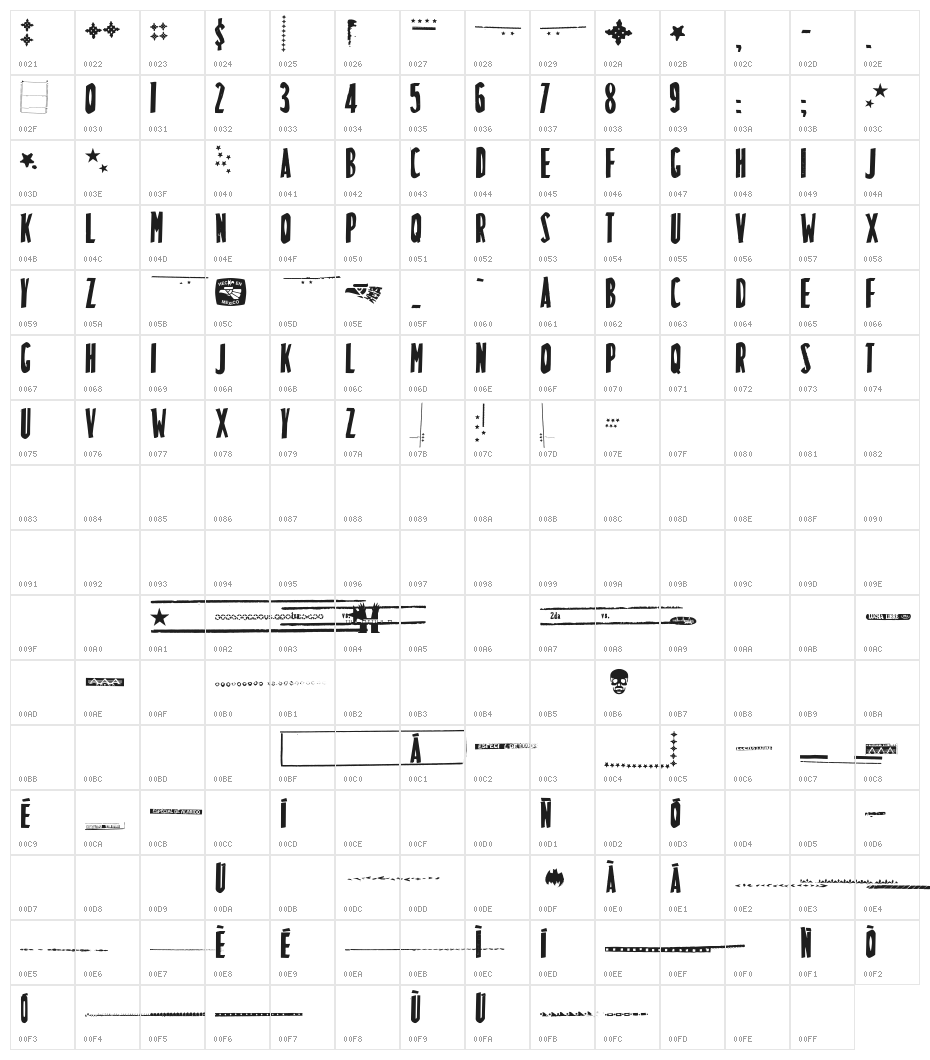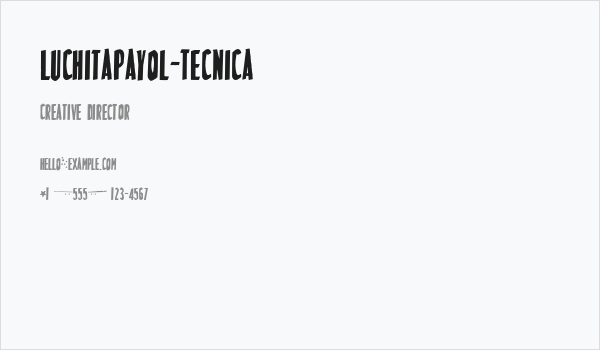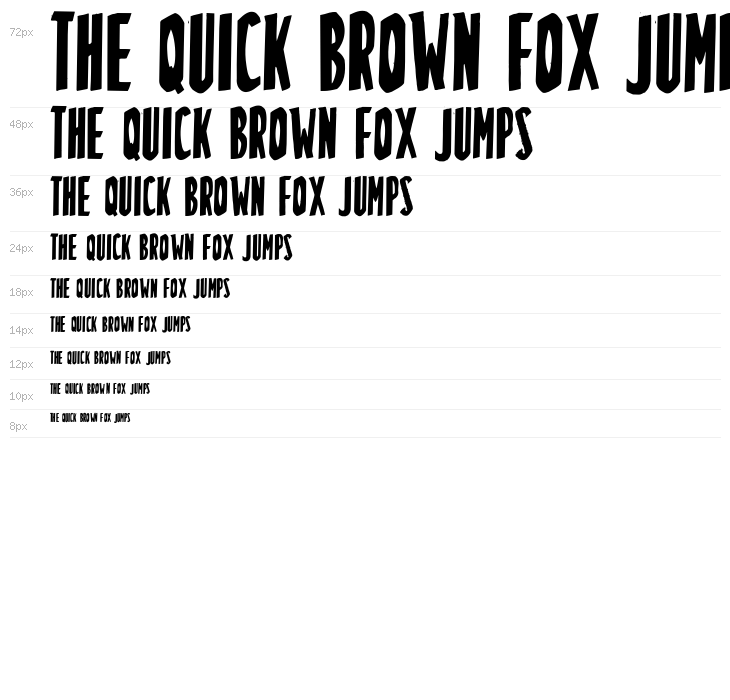
LuchitaPayol-Tecnica Font
LuchitaPayol-Tecnica Description
This font exhibits a bold and dynamic style with a distinctly vintage flair. The uppercase letters are tall and narrow, featuring sharp angles and a slight slant that adds a sense of movement. The lowercase letters maintain the same narrow structure, ensuring consistency across the typeface. Numbers are similarly styled, with a bold presence that matches the letters. Special characters are creatively designed, incorporating decorative elements that enhance the overall aesthetic. The font's texture includes a distressed effect, giving it a worn, rustic appearance that adds character and depth.